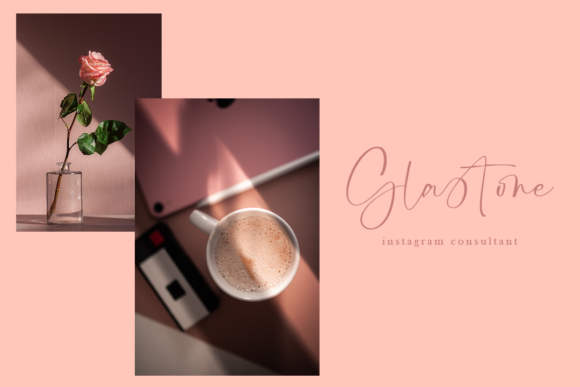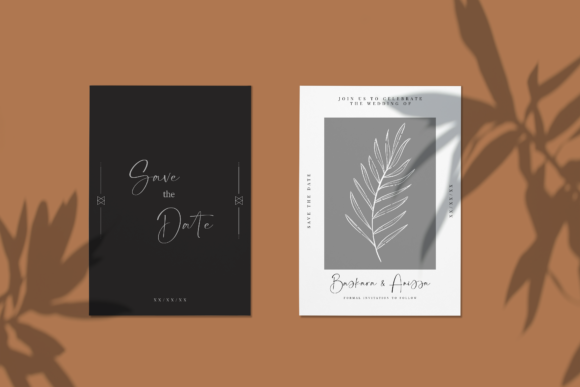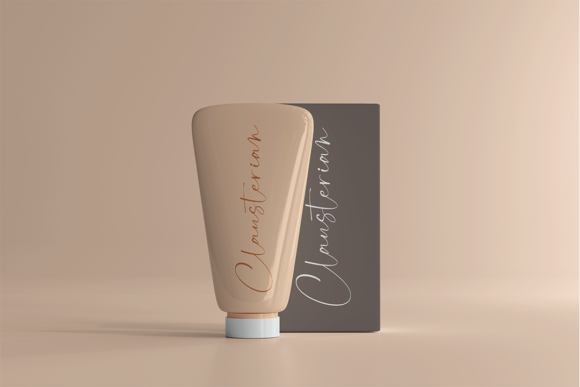
Introduction to Conquest Font
As a designer, there’s nothing quite like the rush of inspiration that hits when you stumble upon the perfect font to elevate your creative project. For me, that moment came when I discovered the Conquest Font – a stunning, thin lettered and relaxed script font that instantly adds a touch of luxury to any design.
With its high-quality aesthetic and PUA encoded features, the Conquest Font is an invaluable resource for designers looking to add a sophisticated flair to their work. Whether you’re working on a branding project, creating a wedding invitation, or crafting a digital magazine, this font is sure to bring a level of sophistication and elegance that’s hard to find elsewhere. And the best part? It’s available for free download with a transparent background, making it the perfect addition to your design arsenal.
Key Features of Conquest Font
- High-quality design resource for creative projects, offering a unique and modern aesthetic.
- Features a transparent background, allowing for easy integration into designs and minimizing visual clutter.
- Includes a range of characters, including uppercase and lowercase letters, numbers, and special symbols, making it a versatile design resource.
- Designed with a high resolution of 1024 x 1024 pixels, ensuring crisp and clear text rendering in various sizes.
- Perfect for use in a variety of creative projects, including logos, typography, and branding materials.
Honest Review: Conquest Font
I recently had the chance to work with the Conquest Font, and I must say it’s a solid addition to any design resource library. This font is perfect for creative projects that require a bold, modern look.
One of the standout features of the Conquest Font is its high quality design, which makes it suitable for both web and print applications. The font is available for free download, which is a definite plus for designers working on a tight budget.
- High-quality design that’s perfect for modern creative projects
- Transparent background option, allowing for seamless integration with different design elements
- Only available in a single weight, which may limit its versatility in certain design contexts
- No italics or bold variations, which could be a drawback for designers who prefer more flexibility
Overall, the Conquest Font is a solid choice for designers looking for a modern, high-quality font to add to their creative project. While it may have some limitations, its free availability and transparent background option make it a valuable resource for any design library.
Conquest Font
The Conquest Font is a high-quality design resource ideal for creative projects that require a strong, bold aesthetic. This free download is perfect for designers and non-designers alike, offering a versatile font that can be used in a variety of contexts.
Tips for Getting the Most Out of Conquest Font
For the best results, use the Conquest Font on a transparent background to create a bold, eye-catching design. Experiment with different font sizes and styles to achieve the desired look.
The Conquest Font is ideal for use in logo design, branding materials, and other creative projects that require a strong, bold aesthetic. It’s also a great choice for use on social media, websites, and other digital platforms.